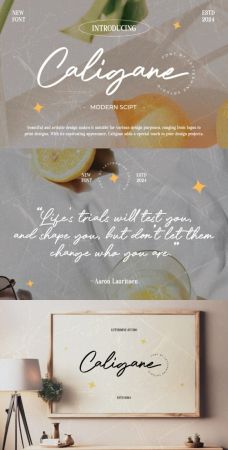
CF - Caligane Font 92809208
Elevate your projects with Caligane, a captivating modern script font meticulously crafted to add a touch of elegance and sophistication to your designs. With its sleek lines and graceful curves, Caligane effortlessly blends contemporary style with timeless appeal.